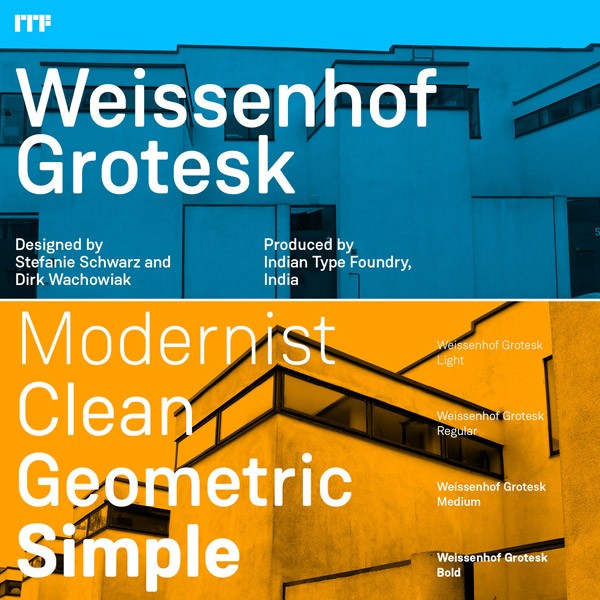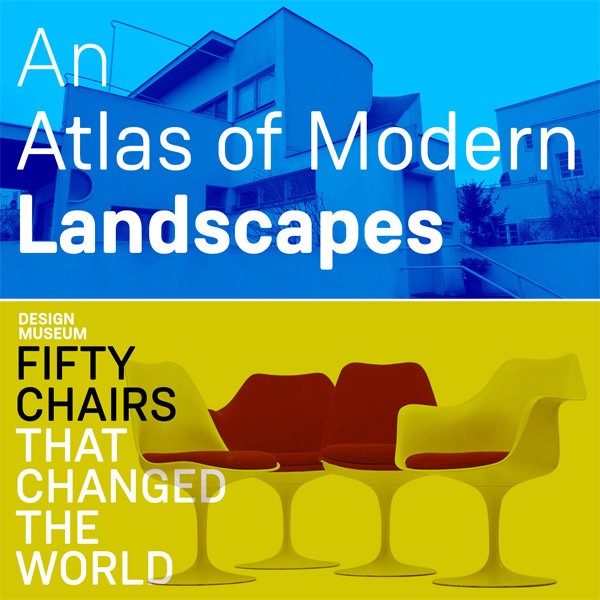
Weissenhof Grotesk, a constructed geometric sans serif from Indian Type Foundry.
The two Stuttgart, Germany-based type designers Stefanie Schwarz and Dirk Wachowiak have created the Weissenhof Grotesk font family in 2015 for the Indian Type Foundry. It’s a constructed geometric sans serif that comes in four weights, each with true italics. The geometric letterforms are inspired by contemporary architectural forms such as curves in conjunction with straight segments. Its great readability is caused by a well-balanced kerning as well as clean, monolinear strokes. The typeface works great for both headlines and short text sections. The family supports multiple languages. You can get it as conventional desktop font as well as webfont. For further information, just follow the link below.